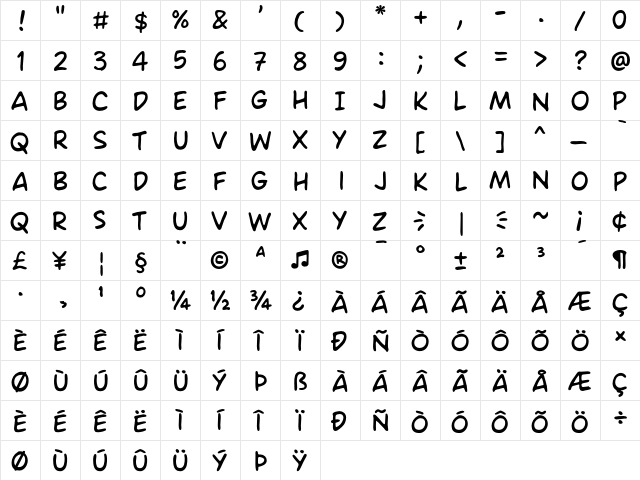
Ames Regular
| Foundry | Pʩvi Toikka |
| Designer | Pʩvi Toikka |
Design Context for Ames Typeface
Ames is a composed and adaptable typeface that performs quietly and consistently across a wide range of design contexts.